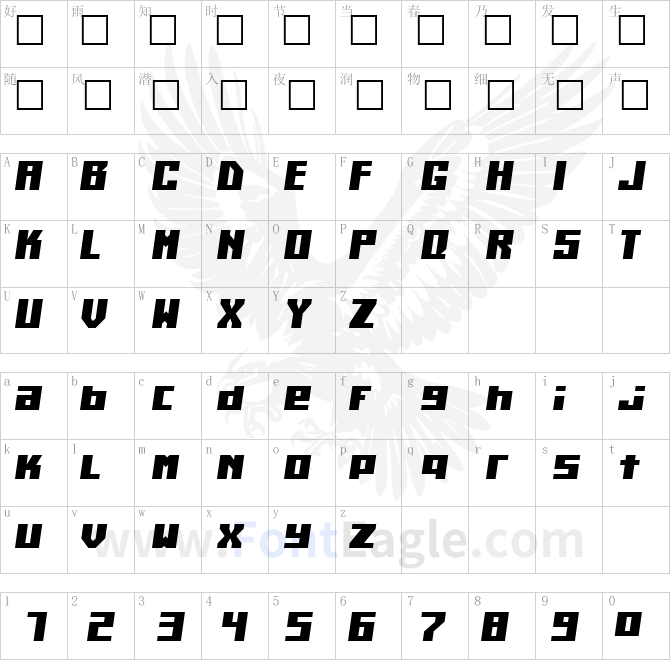
- Font name:Kiloton Condensed Italic
- Font Subfamily ID:—:Kiloton Condensed Italic
- Font Full Name:Kiloton Condensed Italic
- Postscript:Kiloton-CondensedItalic
- Font Copyright:Kiloton Condensed Italic by Kees Gajentaan. Part of the Kiloton Family. July 1997. Name taken from ‘Marshal Law’ comic book by Pat Mills & Kevin O’Neill.